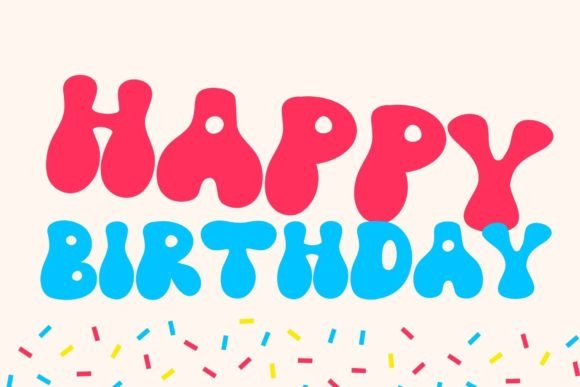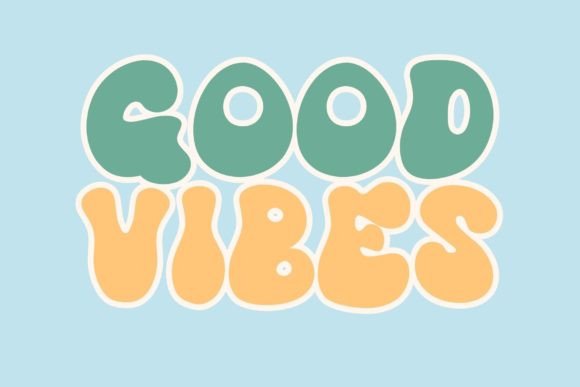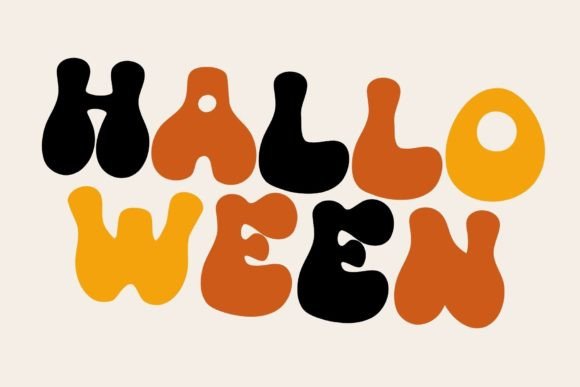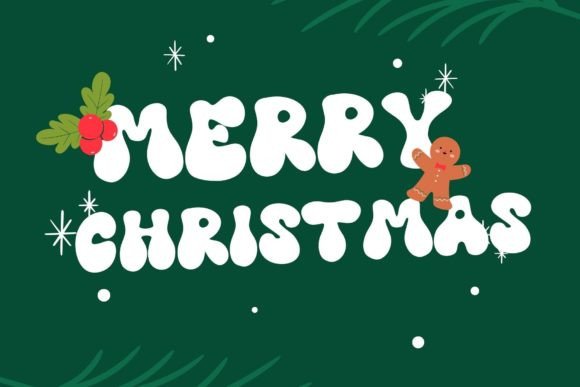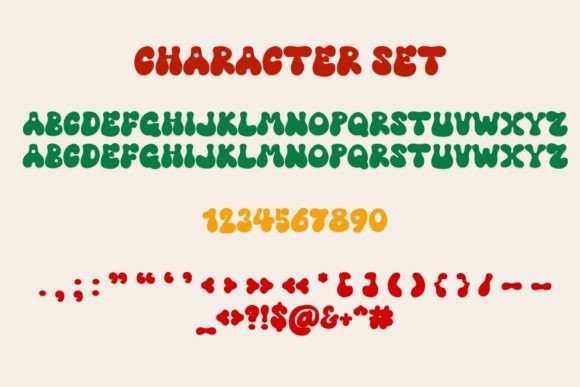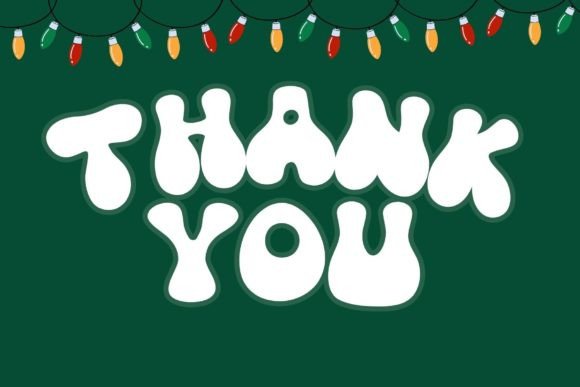
The Perfect Addition to Your Design Arsenal: Chubby Font
There’s nothing quite like the thrill of scrolling through a design feed and stumbling upon a font that makes your heart skip a beat. For many of us, that moment is the spark that ignites a creative project, and for me, that moment was when I laid eyes on the Chubby Font. This retro groovy display font is more than just a pretty face – it’s a tool that can elevate your designs and make them truly unforgettable.
Whether you’re a seasoned designer or just starting out, the Chubby Font is a valuable addition to your toolkit. Its playful and authentic vibe makes it the perfect choice for a wide range of projects, from logos and branding to invitations and photo albums. With the Chubby Font, you can add a touch of whimsy and personality to your designs, making them truly stand out from the crowd.
- Unique Characteristics: Chubby Font features a unique blend of geometric and rounded shapes, giving it a friendly and approachable feel while maintaining a level of sophistication.
Designer Review: Chubby Font
Chubby Font is a playful, rounded sans-serif font that’s perfect for creating a fun and approachable atmosphere in your designs. ✨ I love how it adds a touch of whimsy to text, making it ideal for projects like children’s books, food labels, or social media graphics.
Here are some of its strengths:
- High legibility: Chubby Font is easy to read, even at small font sizes.
- Variety of weights: The font family includes multiple weights and styles, giving you flexibility in your design choices.
- Formal or professional projects: Due to its playful nature, Chubby Font may not be the best choice for formal or professional designs.
- Small text sizes: While the font is highly legible, it may become too chunky when used at very small font sizes.
- Limited language support: Chubby Font may not include all the characters and languages you need for your design project.
Overall, I think Chubby Font is a great choice for designers who want to add a touch of fun and personality to their work. Just be mindful of its limitations and use it in contexts where its playful nature will shine through.
Chubby Font is often used in:
- Food and drink branding
- Playful website designs
- Handwritten-style typography